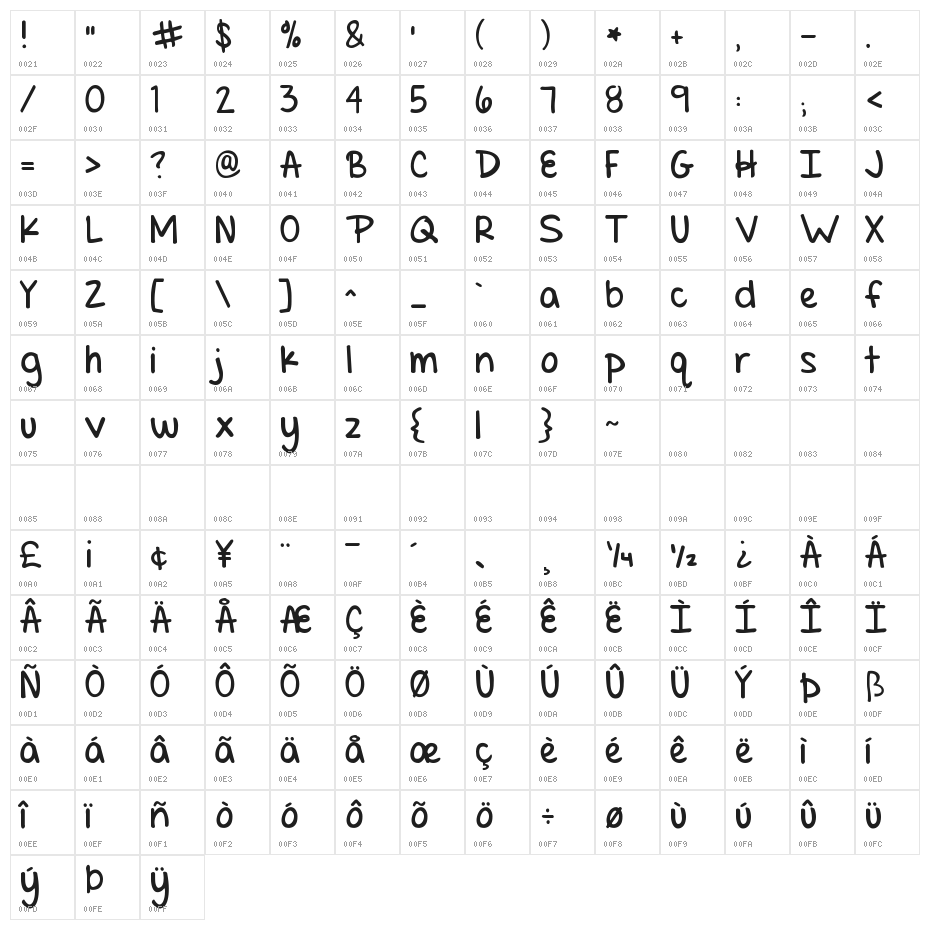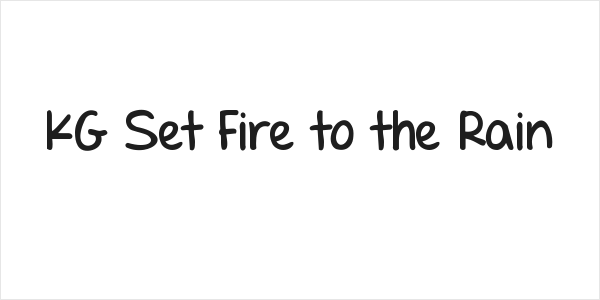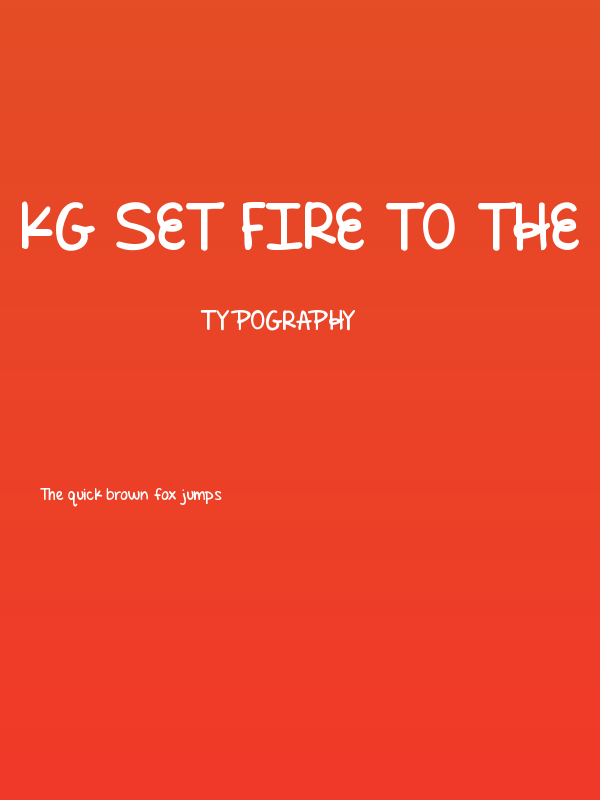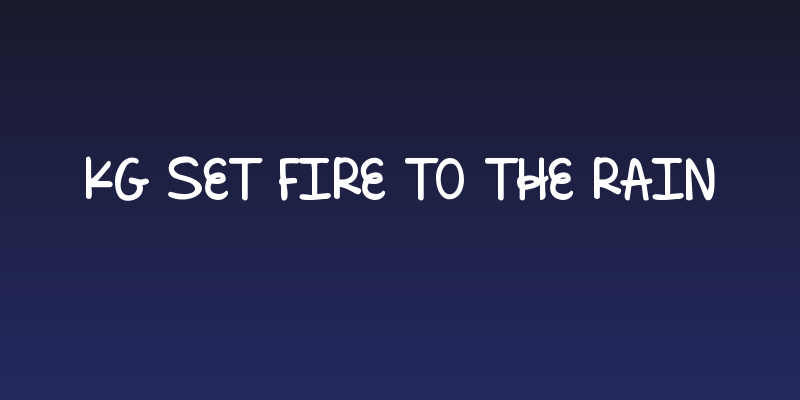
KG Set Fire to the Rain Font
KG Set Fire to the Rain Description
This playful and energetic font features a handwritten style with rounded edges and a casual, friendly appearance. The letters are slightly irregular, adding a personal touch that mimics natural handwriting. The uppercase and lowercase letters are well-balanced, with a consistent stroke width that maintains readability. Numbers and special characters are included, matching the overall style with a whimsical flair. The font's informal nature makes it suitable for projects that require a fun and approachable look.
| Proposed Projects | Ideal for children's books, greeting cards, playful branding, and social media graphics. |